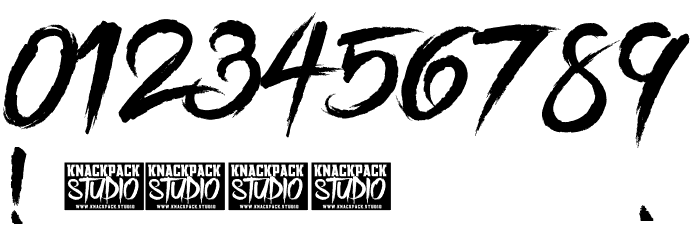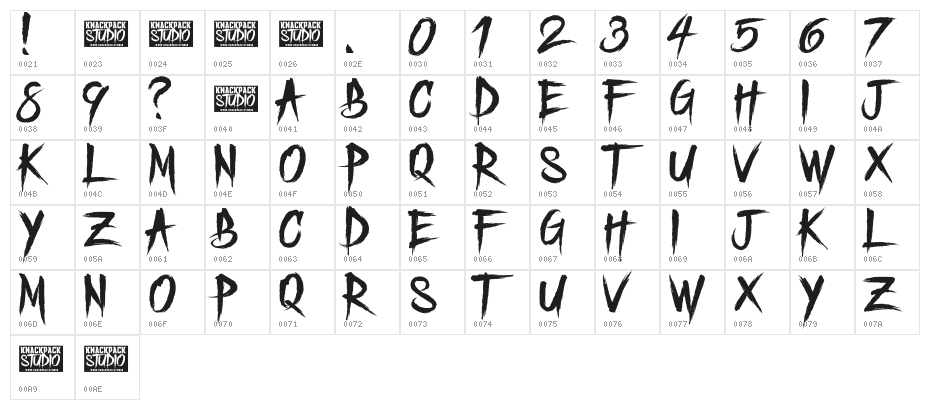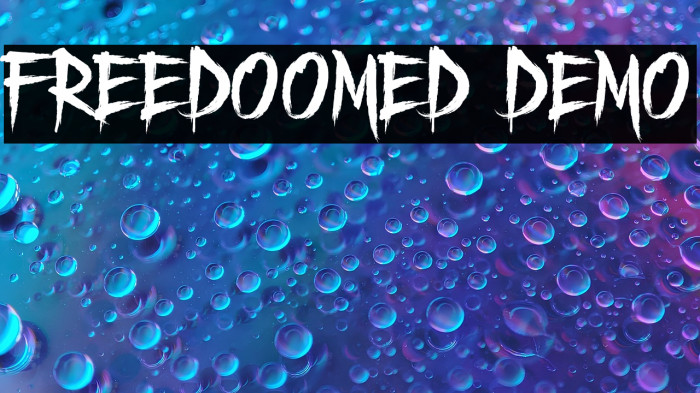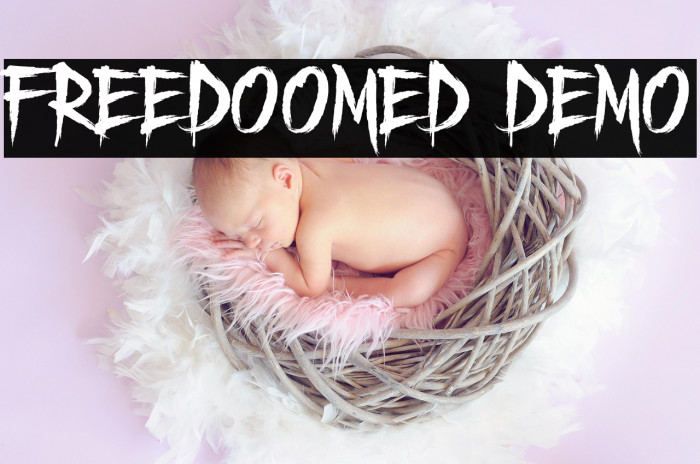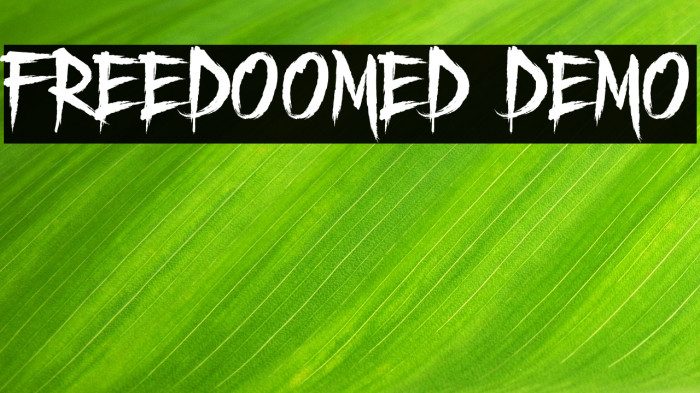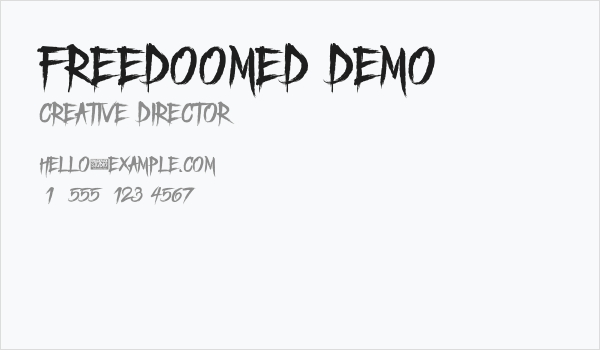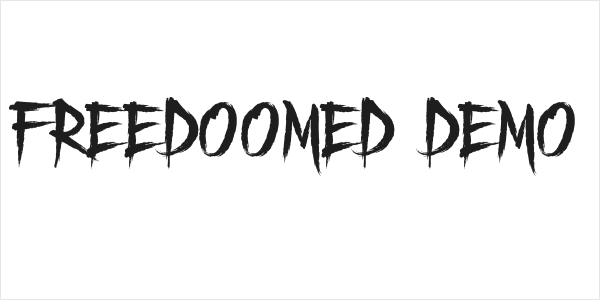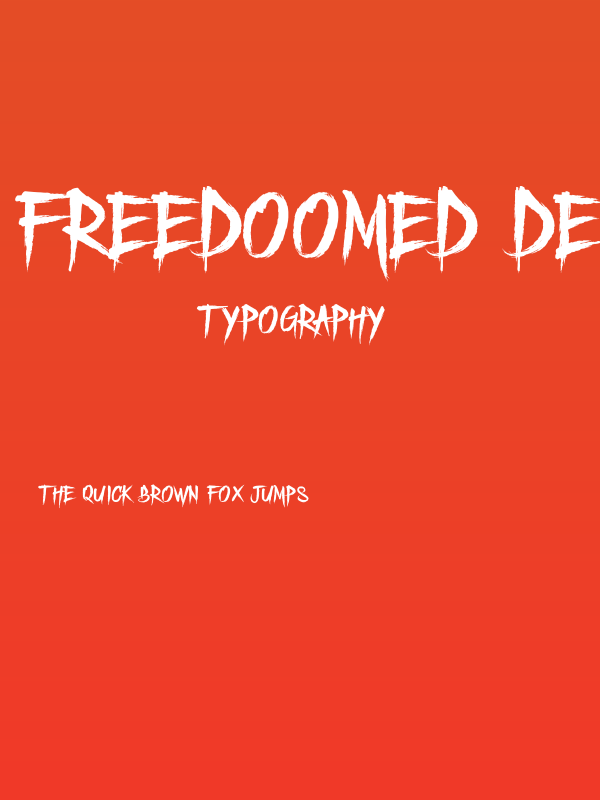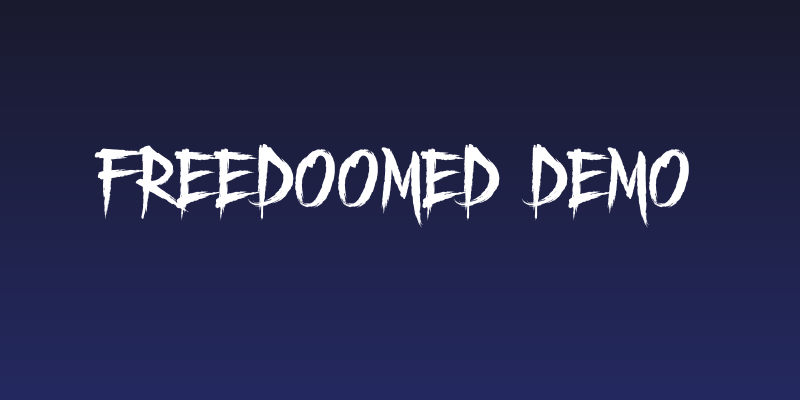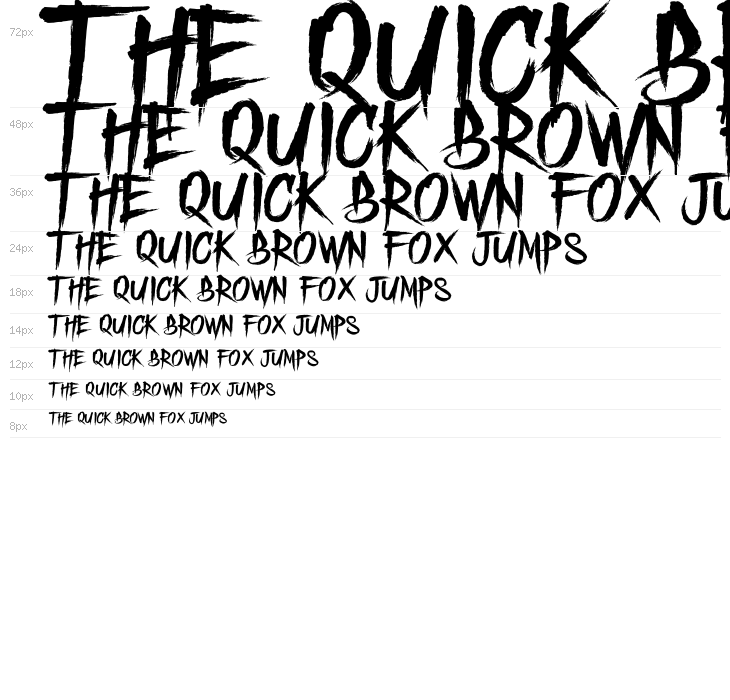
Freedoomed Demo Font
Freedoomed Demo Description
This font exudes a bold and dynamic energy, characterized by its brush-like strokes and sharp edges. The letters are crafted with a sense of movement and intensity, giving it a raw and expressive appearance. The uppercase and lowercase letters maintain a consistent style, with exaggerated curves and pointed terminals that enhance its dramatic flair. Numbers and special characters follow the same aesthetic, ensuring a cohesive look across all elements. This font is ideal for projects that require a strong visual impact, such as posters, album covers, or branding for edgy and creative industries.